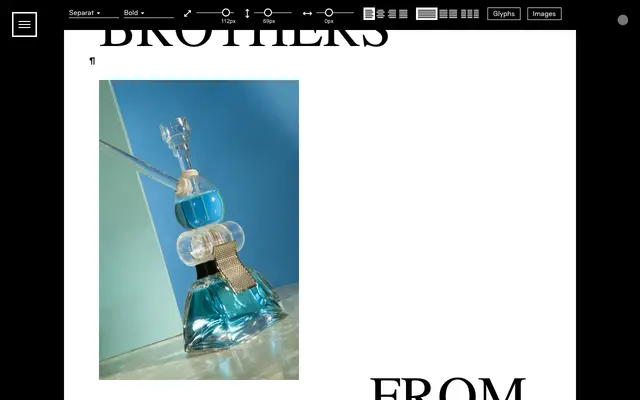
Separat
A concept-driven display typeface from Or Type that uses symmetry and reflection as its structural and visual foundation.
Built around the principle of bilateral symmetry, the typeface draws on geometric transformations — scaling, reflection and rotation — as a core part of its design logic. The specimen demonstrates Cyrillic support alongside Latin, with the mirror theme carried through the editorial copy referencing physics, palindromes and paired cultural icons. Suited to editorial, poster and identity work where a strong conceptual framework is needed.
The specimen foregrounds symmetry, reflection and mirroring as core design principles, with palindromic letterform arrangements suggesting a geometric display typeface built around bilateral symmetry. The expressive, concept-driven specimen copy positions it firmly as display rather than text.